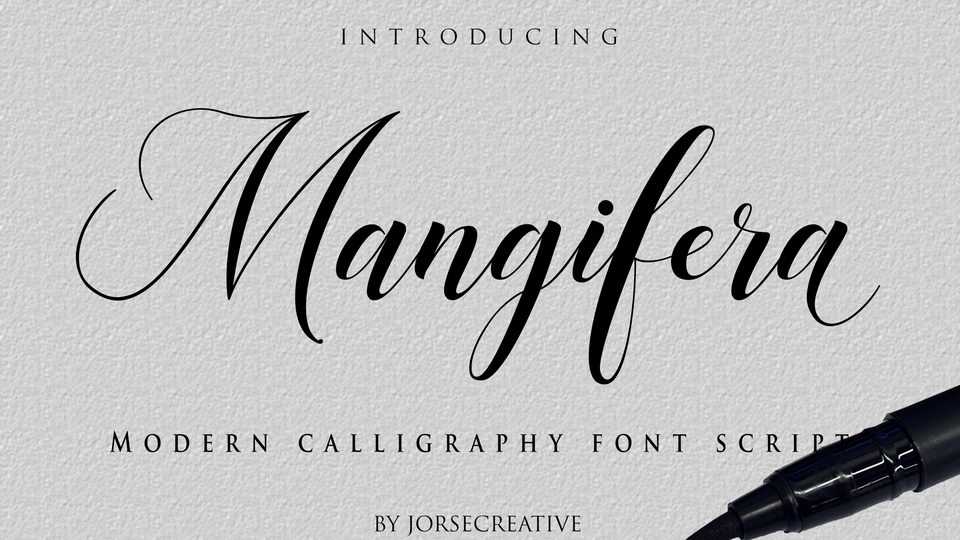
Download Mangifera Script, a stylish calligraphy font that features a varying baseline, smooth line, classic and elegant touch. Mangifera font can be used for logos, weddings, t-shirts and more.